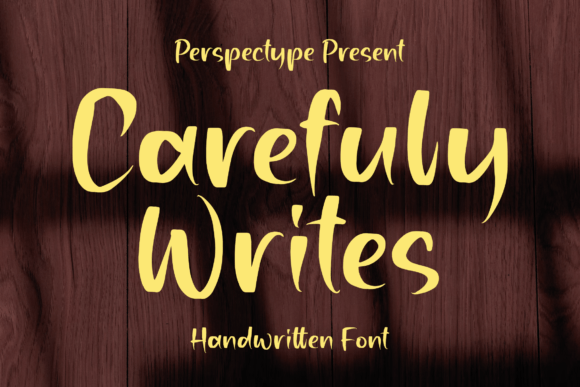
Journey into the realm of captivating typography with Carefully Writes, a script font that's poised to cast a spell on your designs. This enchanting handwritten font is a symphony of elegance, perfect for conjuring up a touch of romance and charm in your creative projects.
Crafted with precision by the skilled artisans at Perspectype, Carefully Writes exudes a graceful fluidity that dances across your designs. Its delicate strokes and sweeping curves intertwine effortlessly, lending an ethereal beauty to every letterform.
As a versatile script font, Carefully Writes effortlessly adapts to a multitude of design applications, making it a true gem in any designer's toolkit. From greeting cards and invitations that whisper sweet sentiments to captivating headlines that command attention, this font is guaranteed to make your words shine.
Whether you're a seasoned typographer or just starting your design journey, Carefully Writes is an essential addition to your font library. Its user-friendly nature and broad range of applications make it an indispensable tool for creating designs that resonate with your audience.
Discover the enchanting allure of Carefully Writes today and embark on a creative adventure that will leave your designs spellbound. Let this font be your muse, guiding you towards design masterpieces that captivate and inspire.